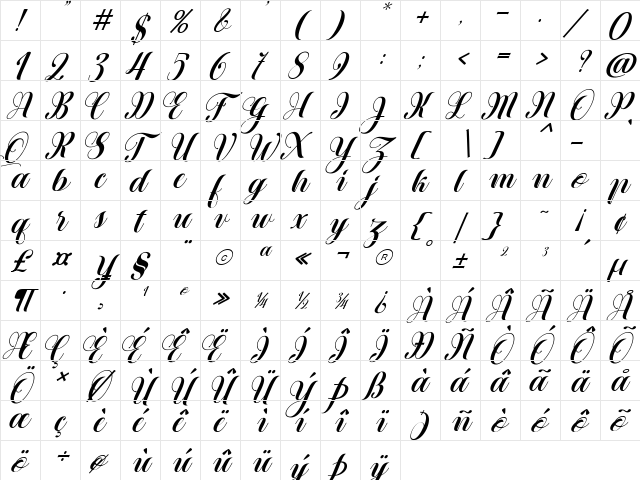
Heartbeat italic Regular
Design Context for Heartbeat italic Typeface
Heartbeat italic is a composed and adaptable typeface that performs quietly and consistently across a wide range of design contexts. The slanted form adds forward momentum and visual energy.
Pro Tip: Use Heartbeat italic for emphasis, pull quotes, and subheadings where its slanted energy can add rhythm to the layout.